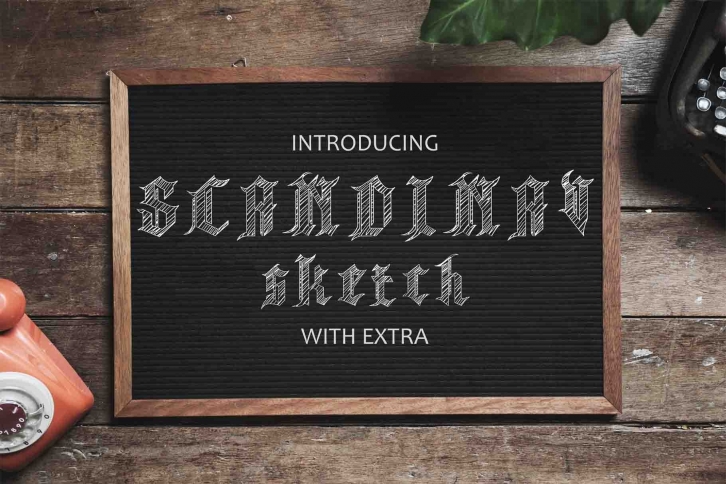
Skandinav2 is a sketch version font from our previous font. we made a sketch version to make it look different from the other Blackletter. we also add an illustration bonus for prospective buyers so that potential customers can imagine more in making a design work